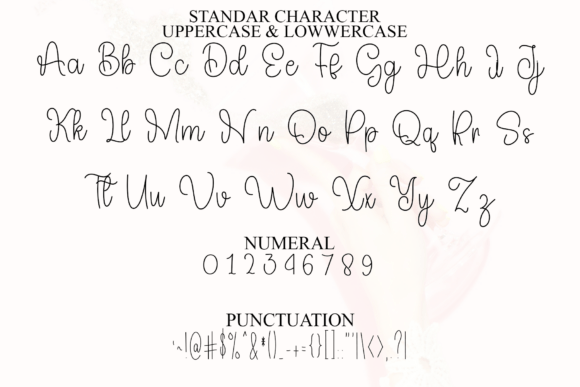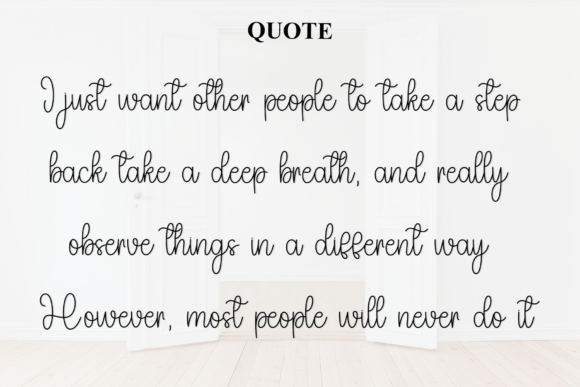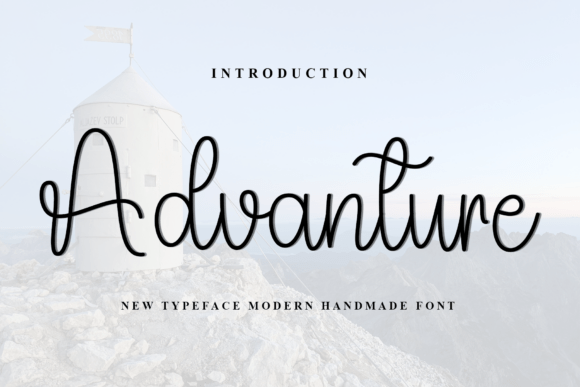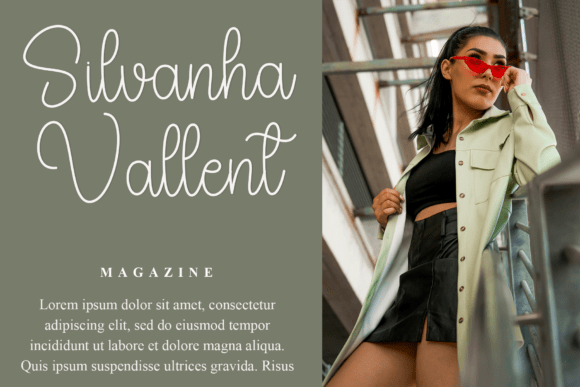
Advanture Font
About the Advanture Font
Welcome to the world of Advanture Font, a typeface that will inspire your next great project. Advanture is a festive and merry typeface that captures the spirit of the holiday season. With its decorative elements and whimsical flair, it adds a touch of enchantment to your designs. Perfect for greeting cards, gift tags, and holiday-themed projects, this font brings a cheerful and nostalgic ambiance to your words. Let your typography shine with the magic of Beautiful Font!
Advanture’s playful energy makes it ideal for headlines, short marketing slogans, and festive packaging designs. Its decorative nature, however, makes it less suitable for body text or UI elements where readability is paramount. Avoid using it for large blocks of text.
Consider pairing Advanture with a clean sans-serif like Lato for a balanced contrast, or a more elegant serif such as Playfair Display for a sophisticated feel. For a more whimsical approach, a handwritten script font could complement its festive character.
Advanture projects a cheerful, nostalgic personality, best suited for brands focused on joy, celebration, and heartwarming experiences. It’s less appropriate for projects requiring a modern, minimalist, or serious tone.